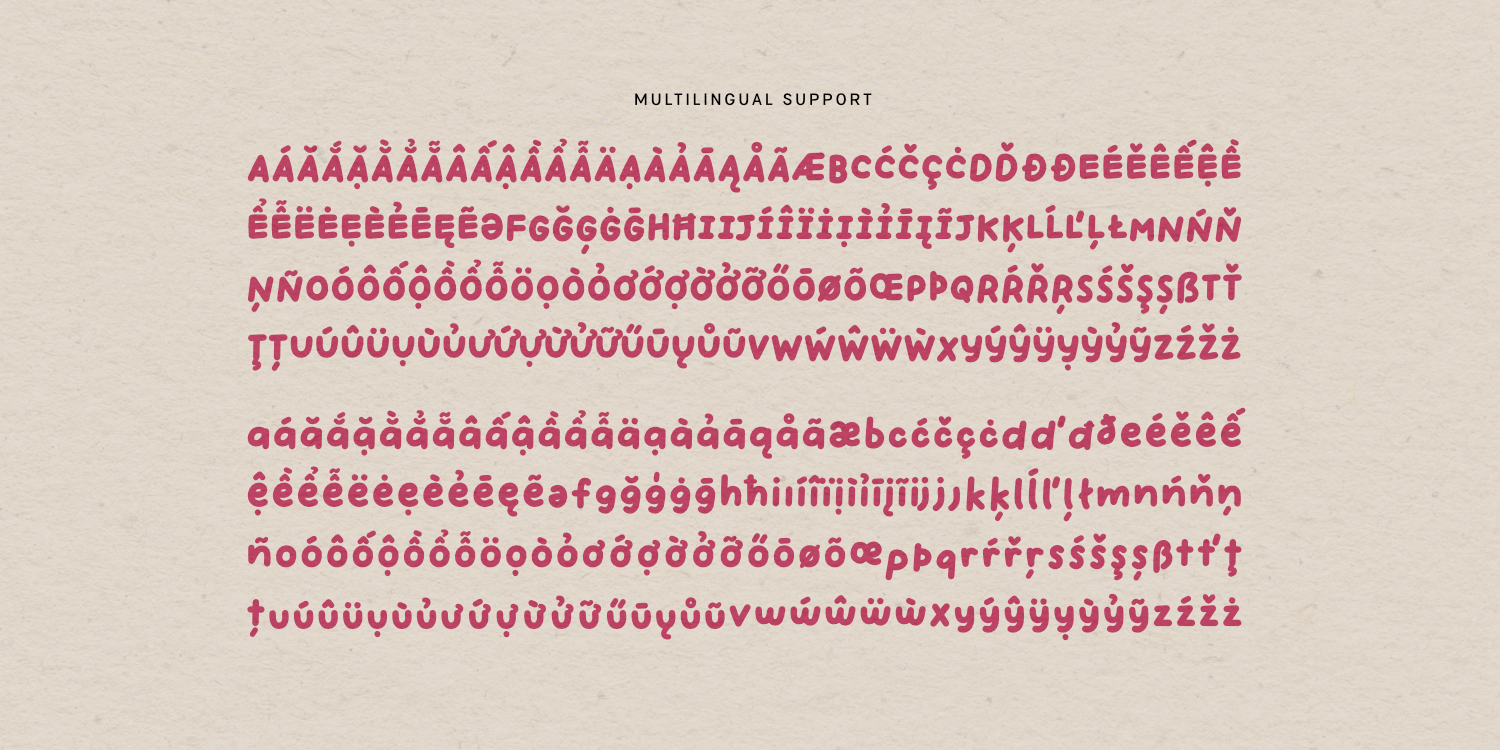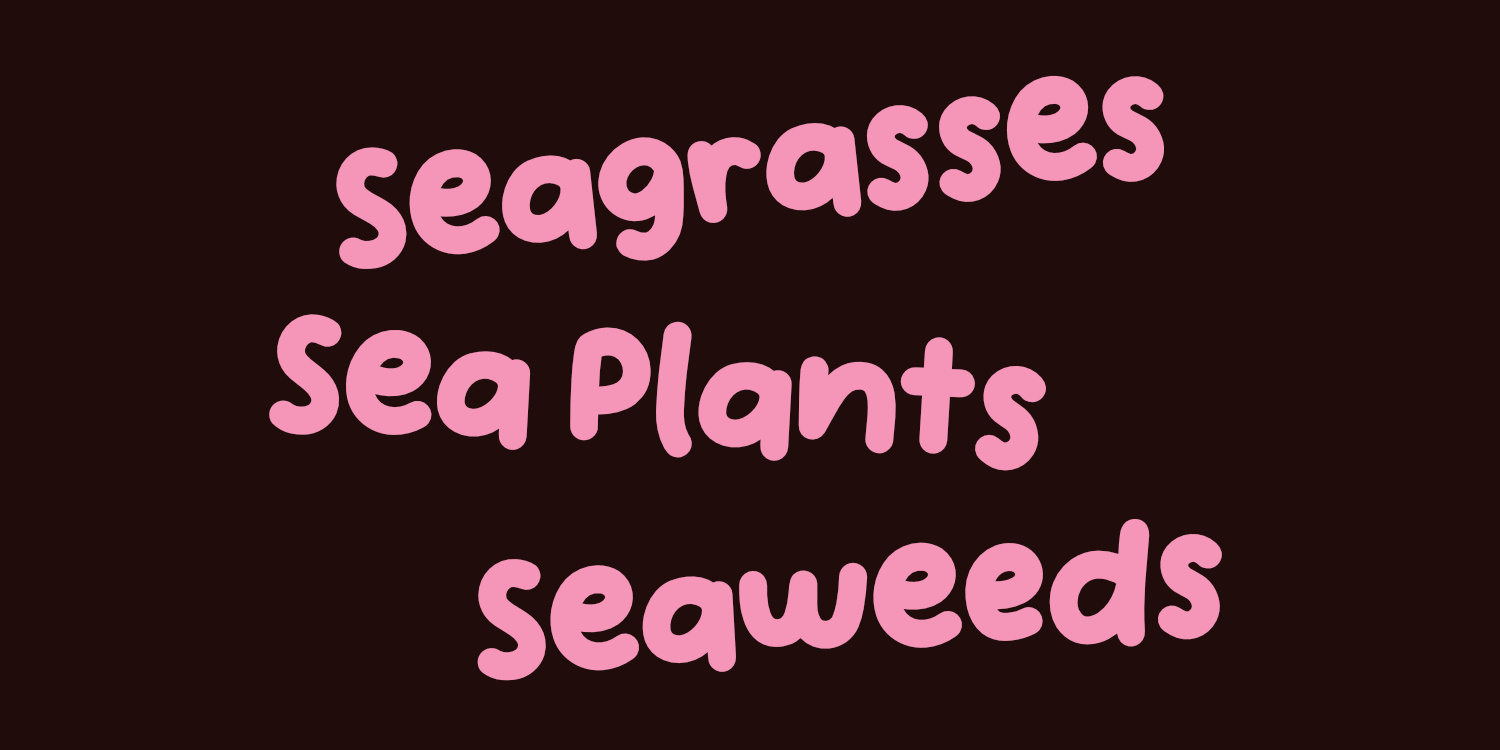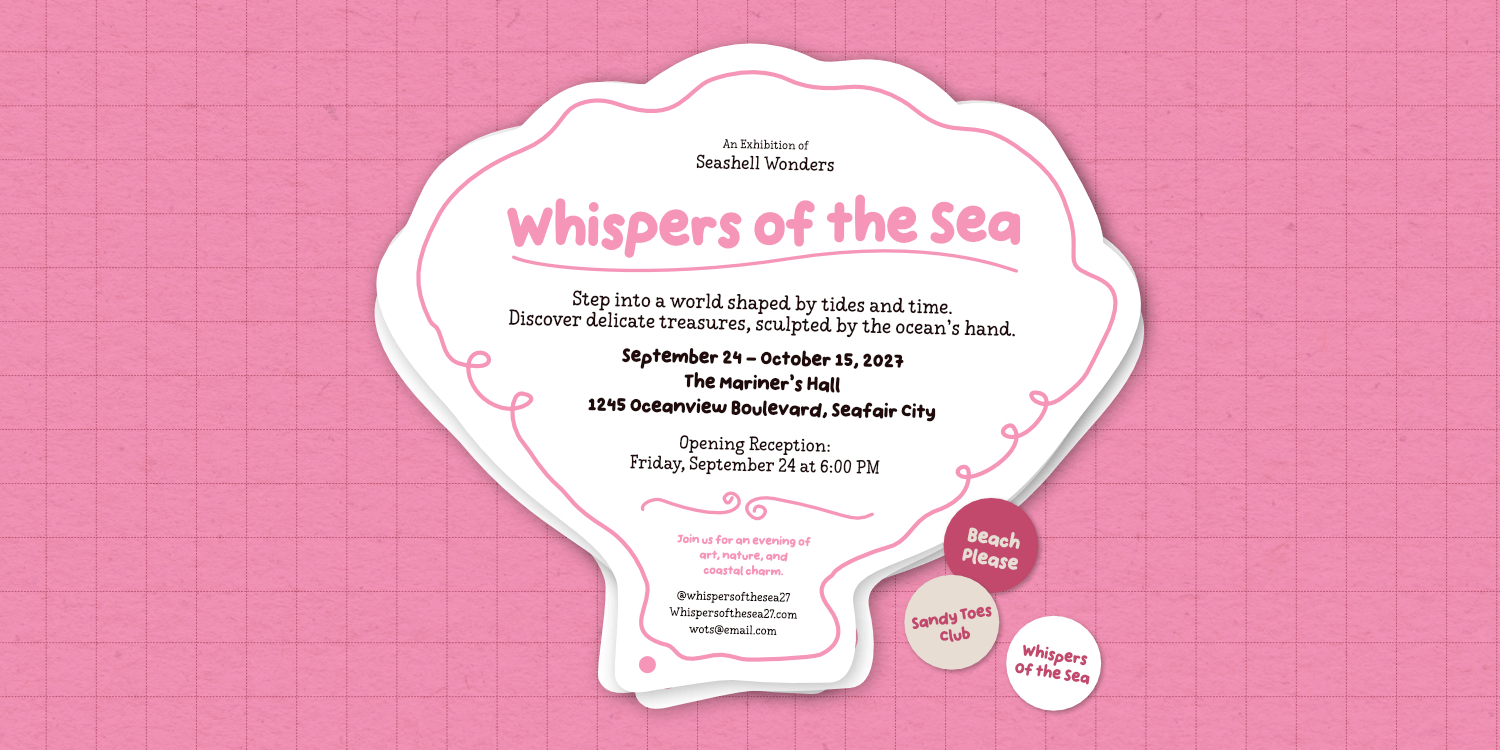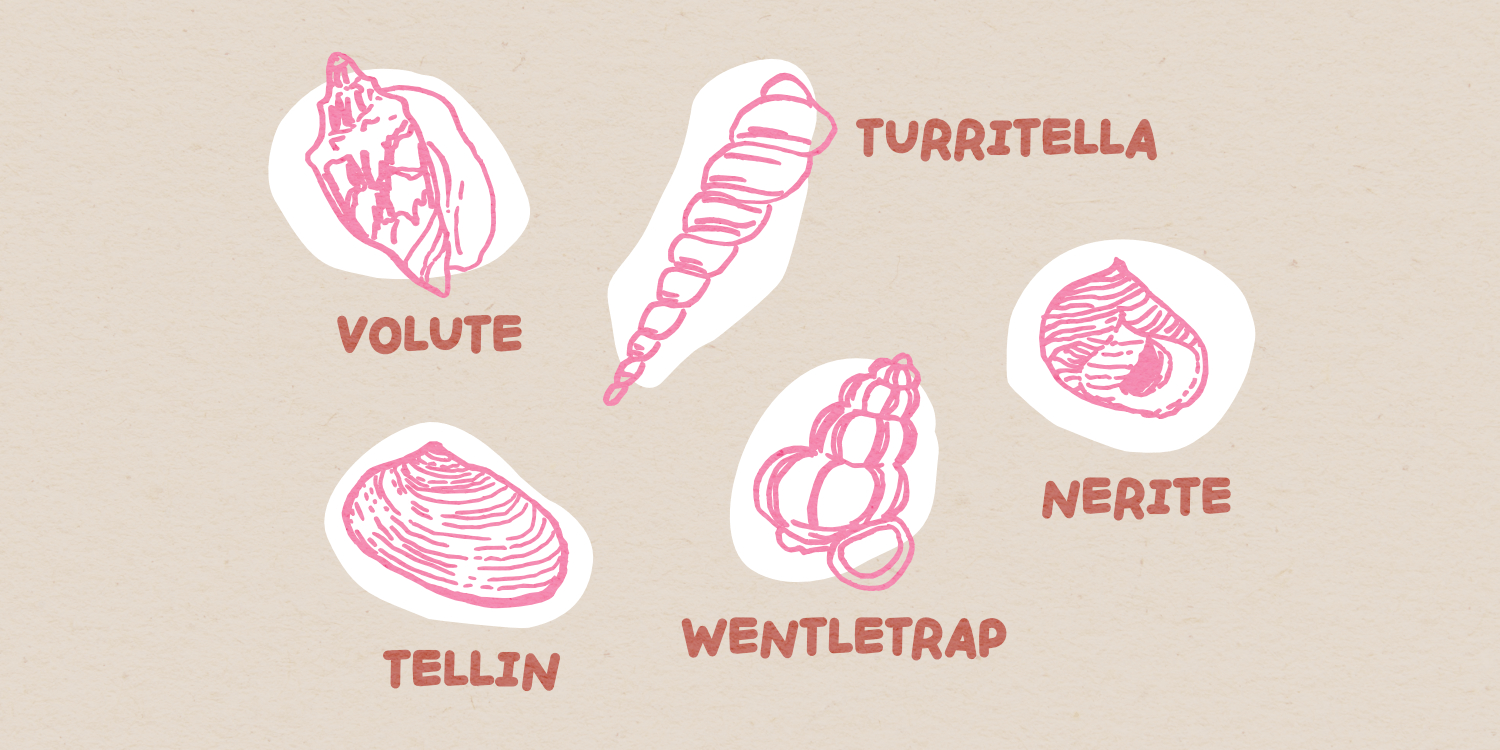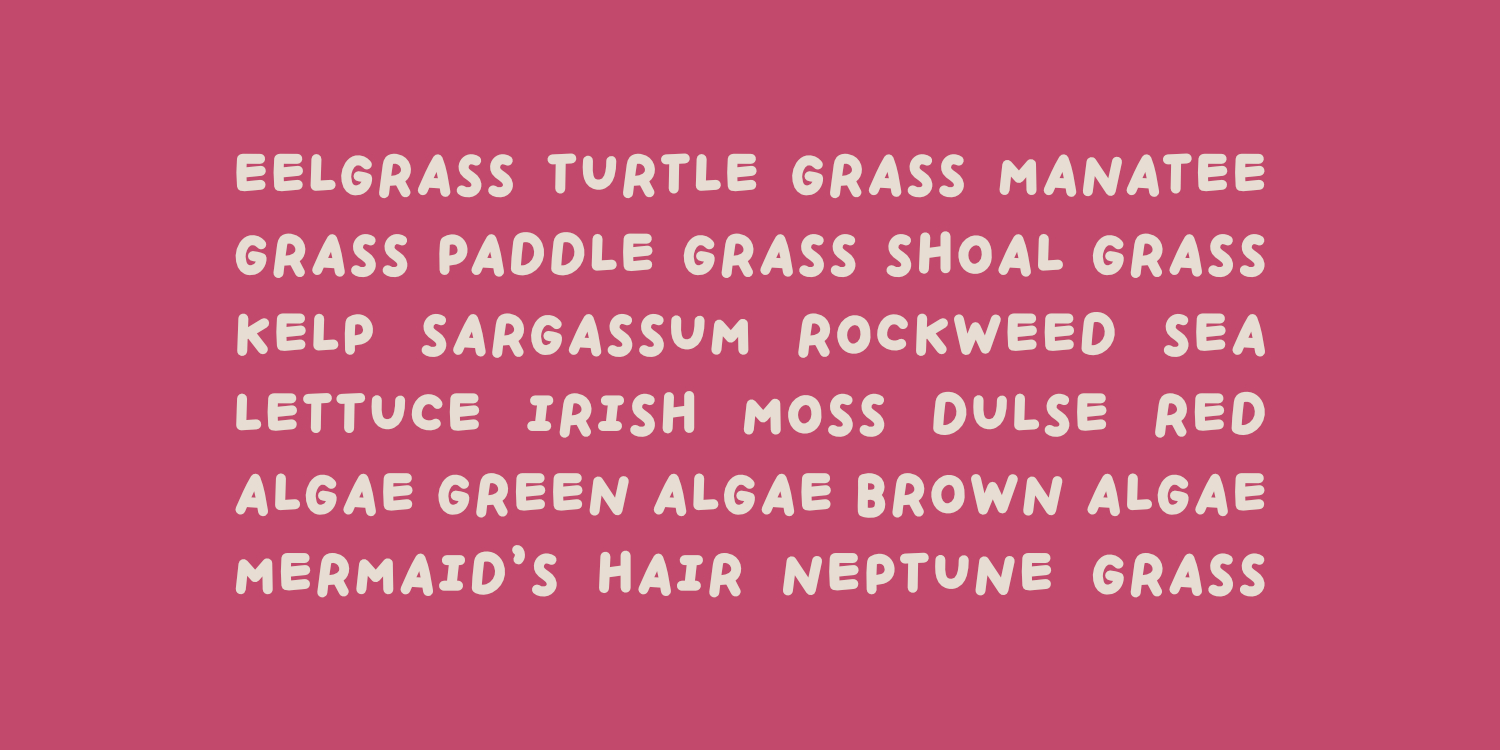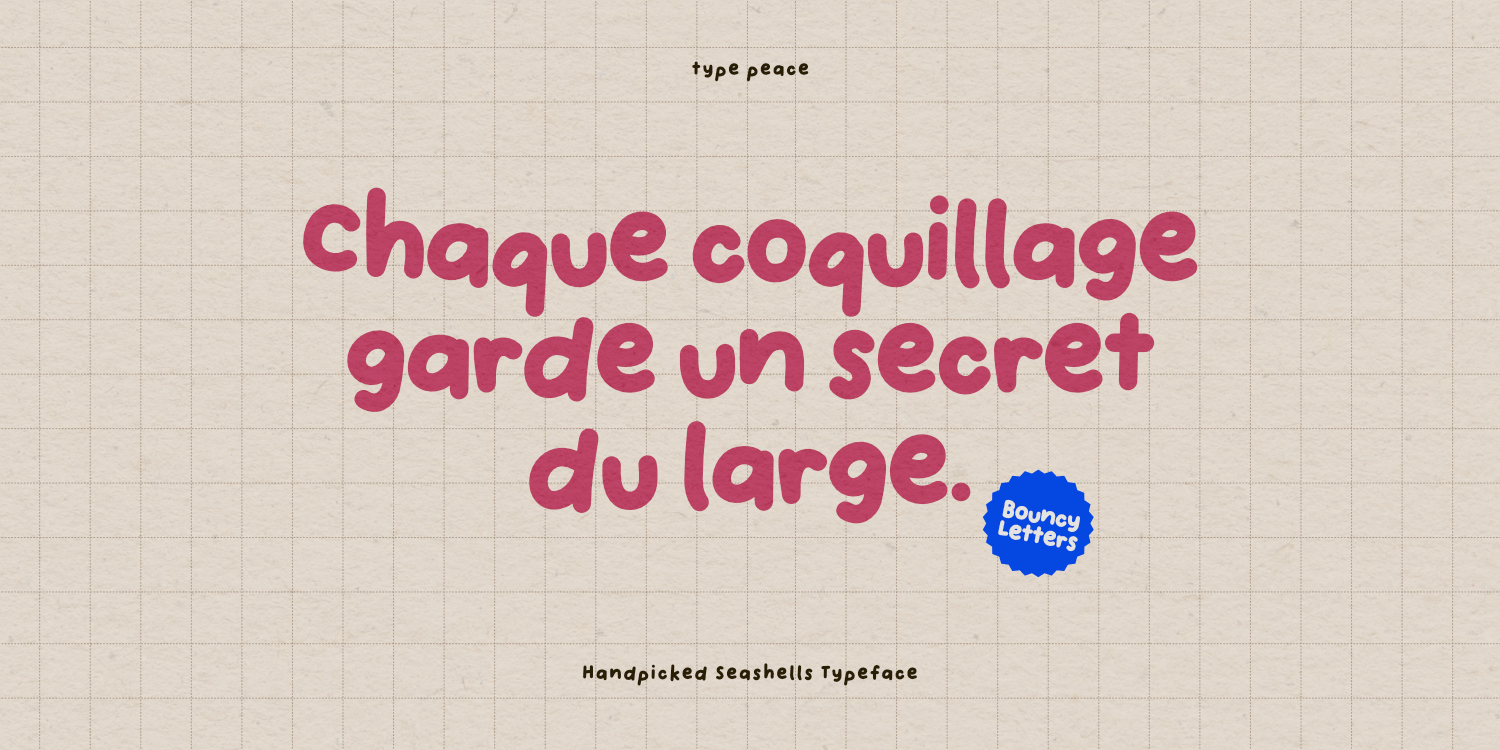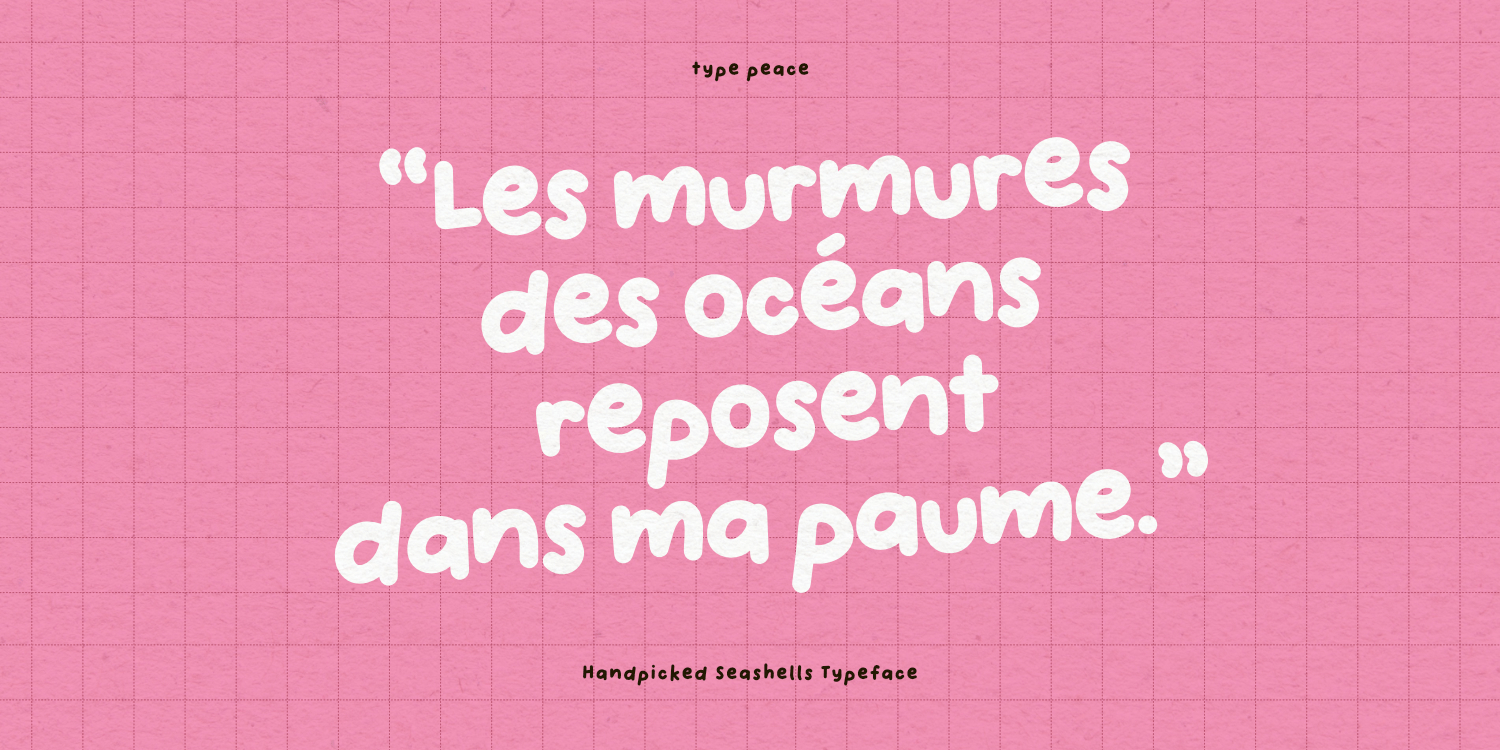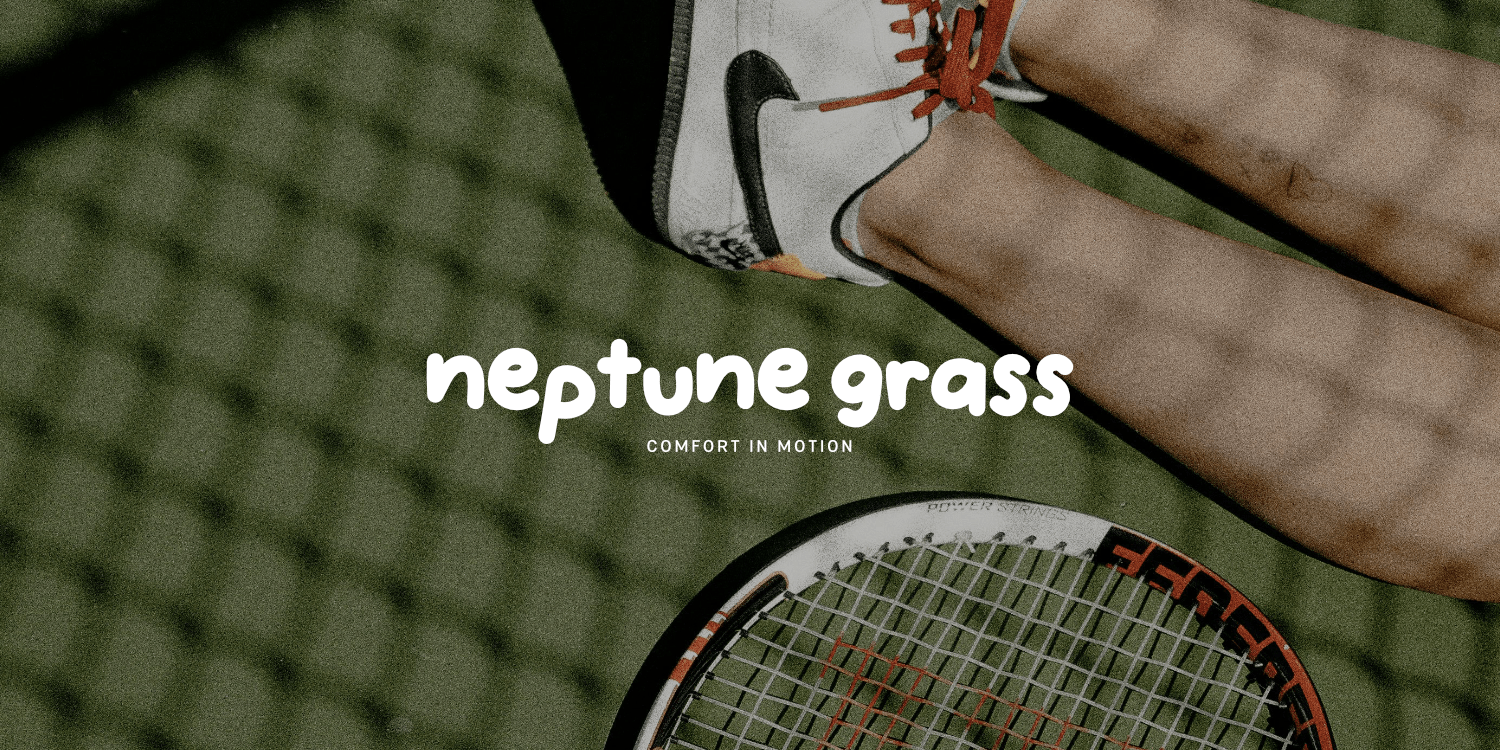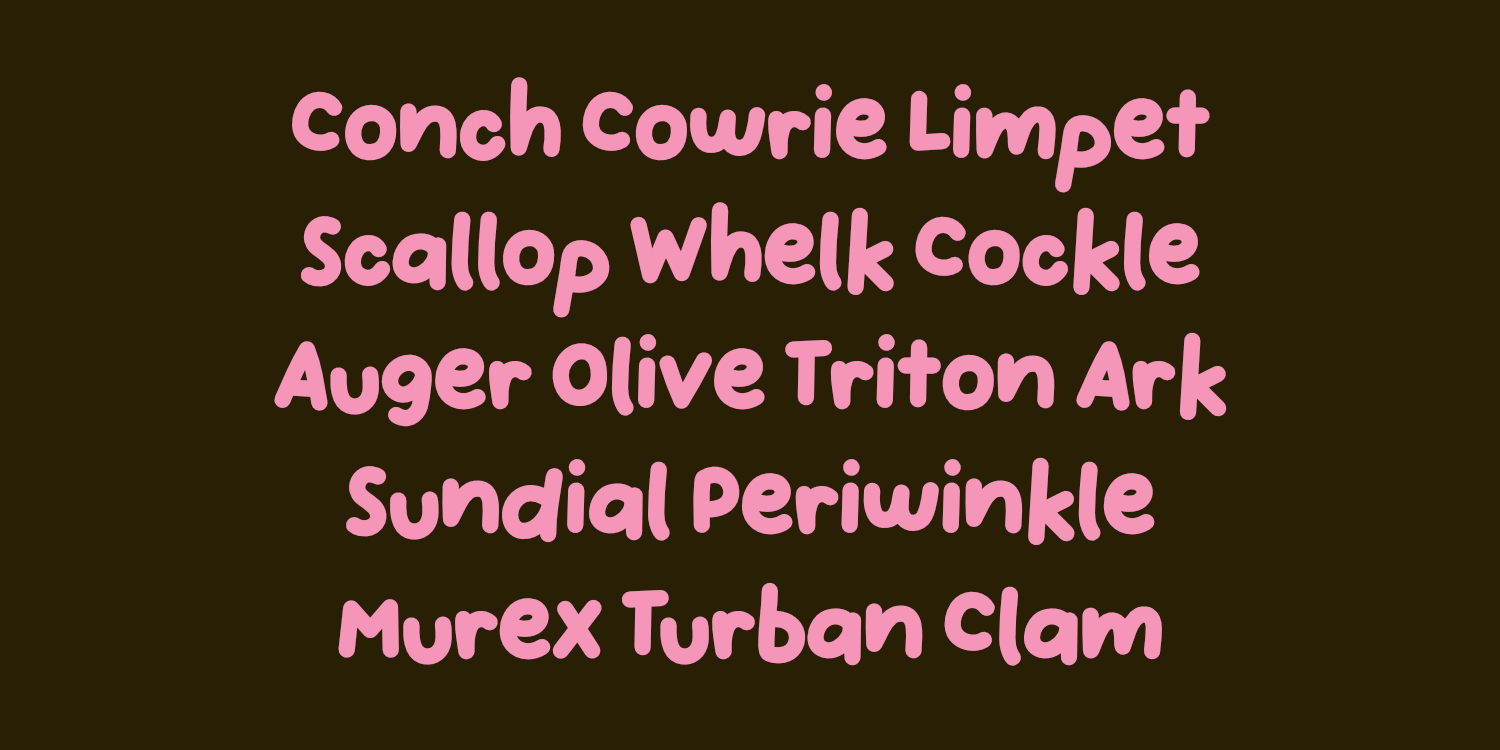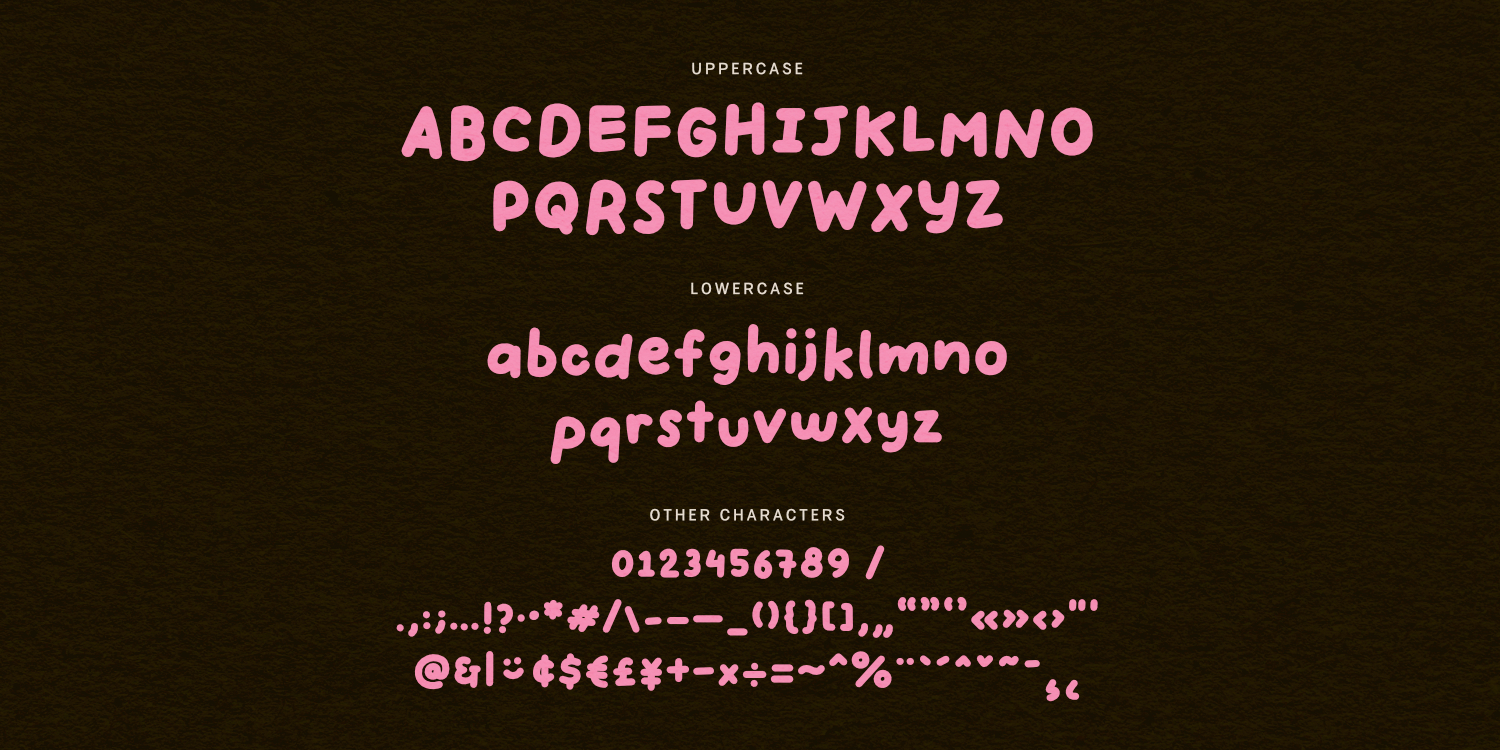
Handpicked Seashells
Font Family by type peace
HANDPICKED SEASHELLS is a bold and playful handwritten font that brings a youthful, dynamic charm to your designs.
Featuring multilingual support, it’s perfect for eye-catching social media thumbnails, fun branding, and expressive design projects that need a touch of personality.
Font features:
• Uppercase & Lowercase
• Numbers, marks and symbols
• Multilingual support
Script: Latin